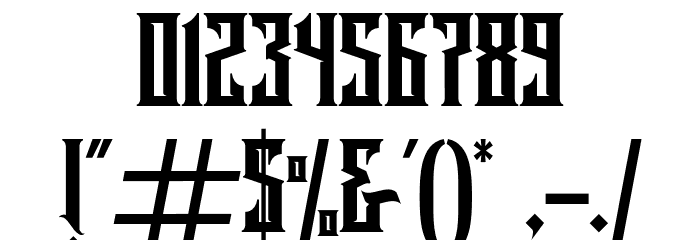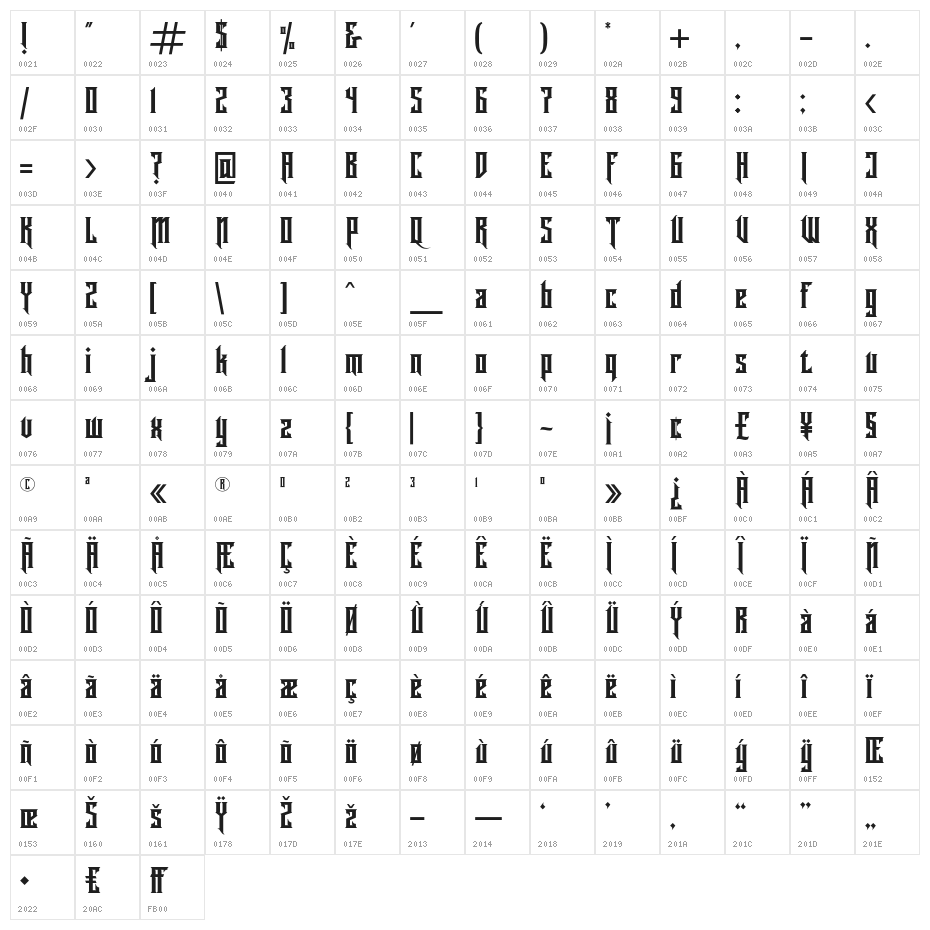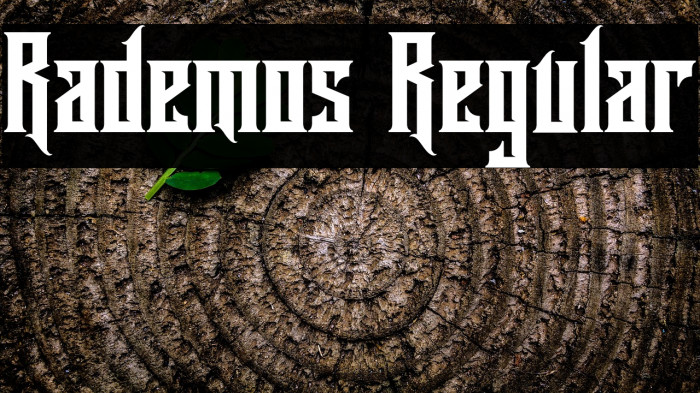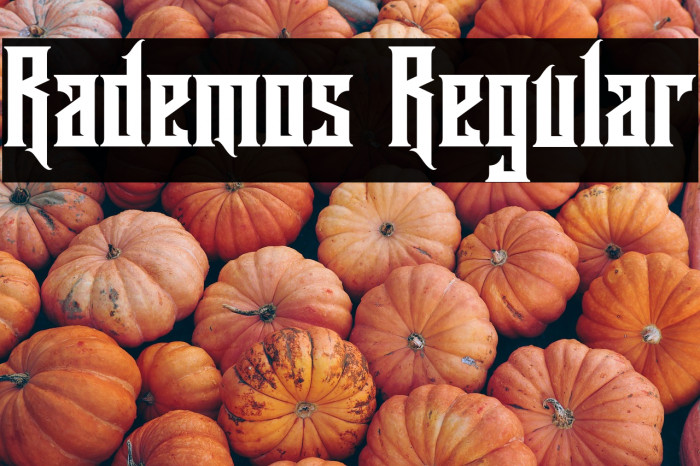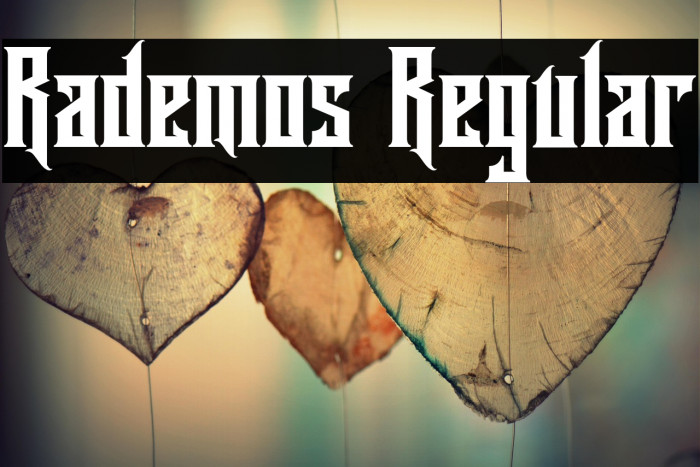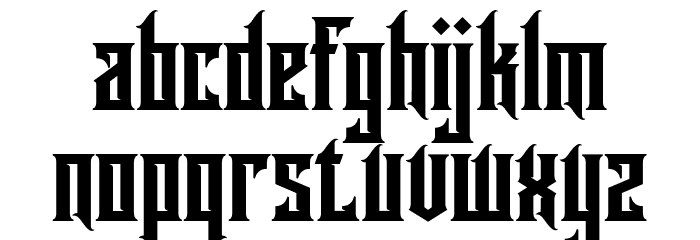
Rademos Regular Font
Rademos Regular Description
This font features a bold and striking design with a strong blackletter influence. The characters are sharply angular, with dramatic serifs and a gothic style that evokes a sense of tradition and authority. The uppercase letters are particularly ornate, with intricate details that add to the font's decorative appeal. The lowercase letters maintain the same gothic aesthetic, ensuring consistency across different text cases. Numbers and special characters are designed to match the overall style, making this font suitable for a variety of uses where a bold, historical look is desired.
| Proposed Projects | Ideal for projects that require a historical or authoritative aesthetic, such as event posters, book covers, or branding for traditional products. |